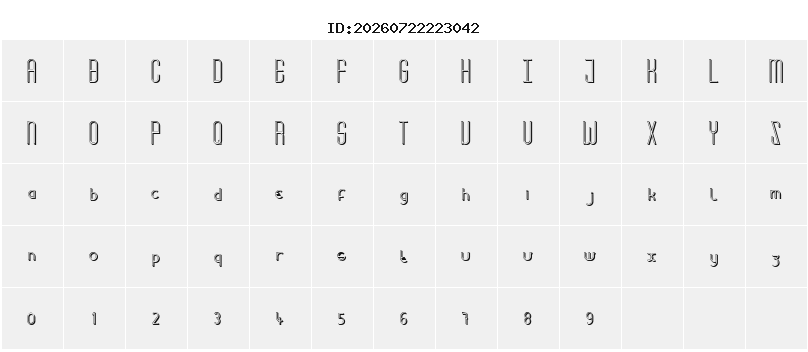
More Babydoll Preview
• Font Name: More Babydoll
• Full Font Name: More Babydoll
• Designer: dcoxy Medina Gregory
• Manufacturer: dcoxy Medina Gregory
About More Babydoll.ttf
More Babydoll.ttf is a modern, elegant sans-serif font designed for ultimate readability and visual harmony. Perfect for branding, headlines, web design, and print materials.